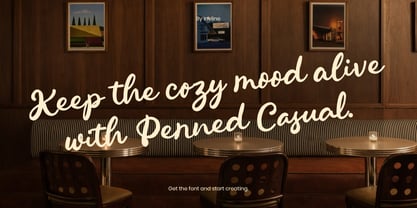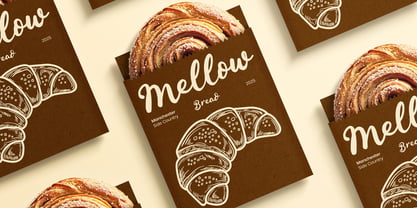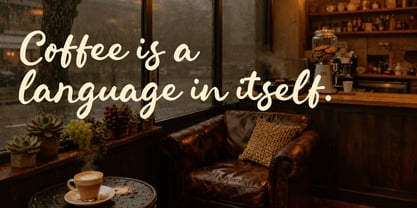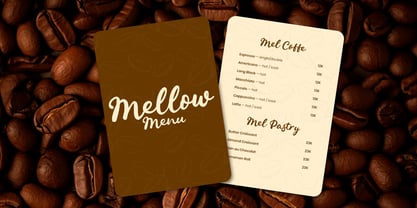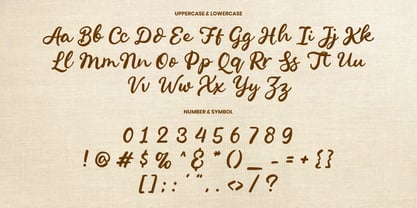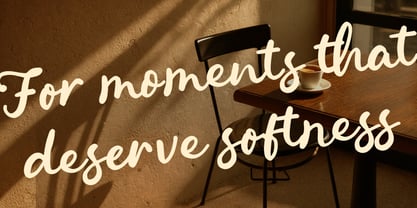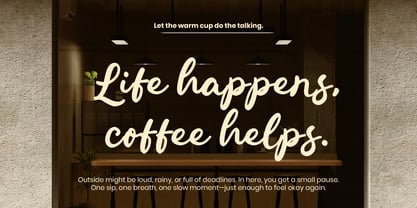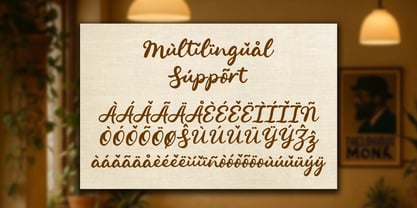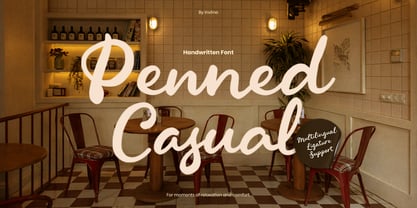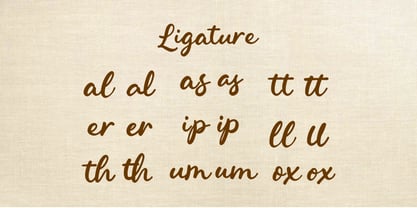
Penned Casual
by Inviline
The Penned Casual Font Family was designed by Virgiawan Listanto and published by Inviline. Penned Casual contains 1 styles. More about this family
Penned Casual is a warm handwritten script font designed with smooth curves, soft terminals, and a natural flowing rhythm that feels personal and inviting; What You Get: a handwritten script typeface with uppercase & lowercase letters, numbers, punctuation, multilingual support, and stylistic ligatures that keep every connection seamless and organic; Perfect For coffee shop branding, bakery packaging, menu design, lifestyle logos, social media quotes, editorial headlines, cozy café signage, wedding stationery, and any creative project that needs a relaxed, friendly, and authentic handwritten touch.
Designers: Virgiawan Listanto
Foundry: Inviline